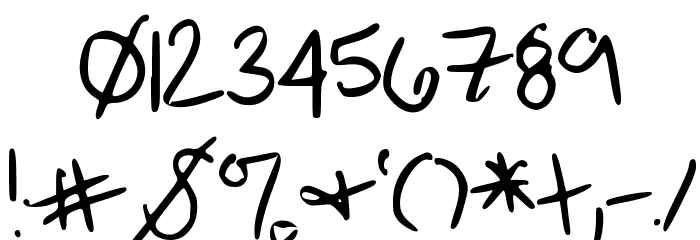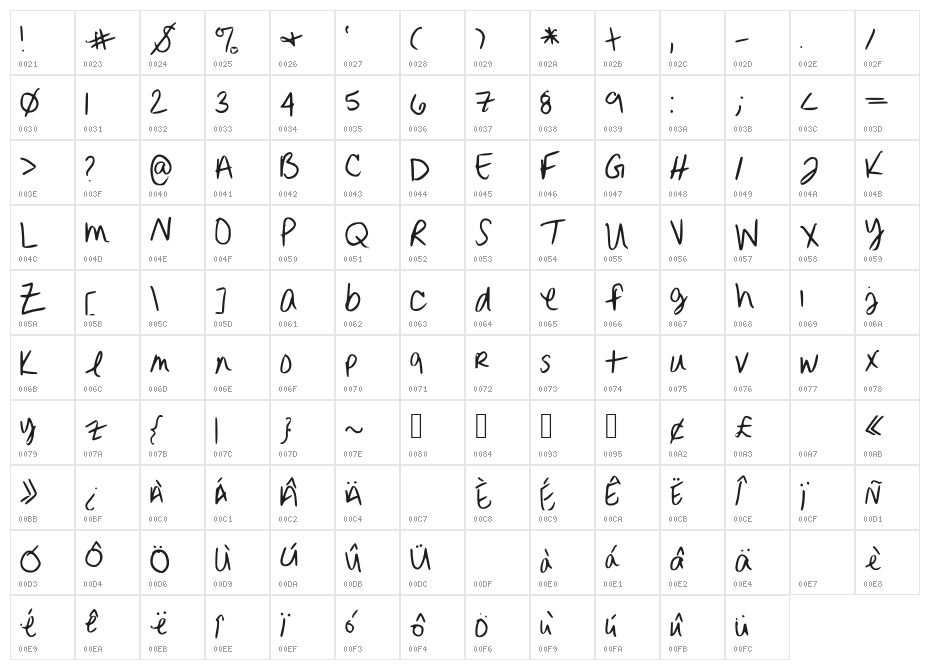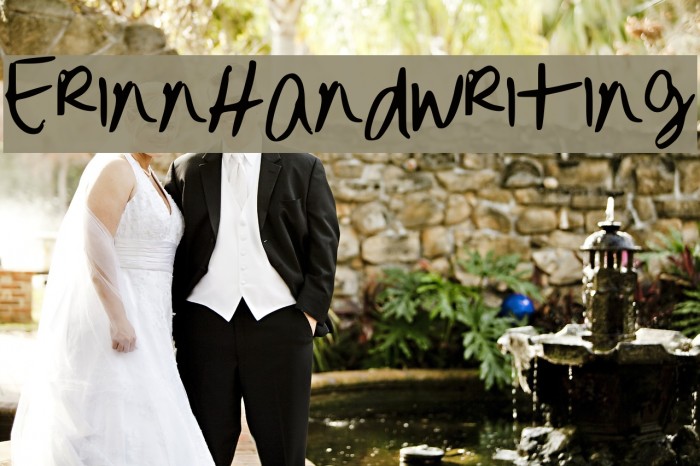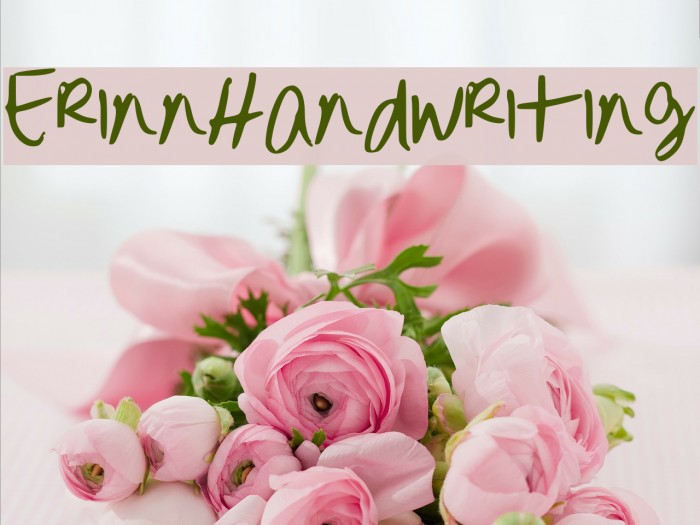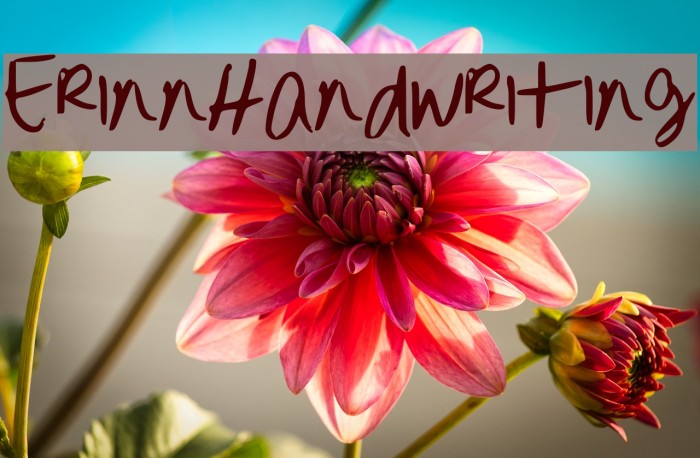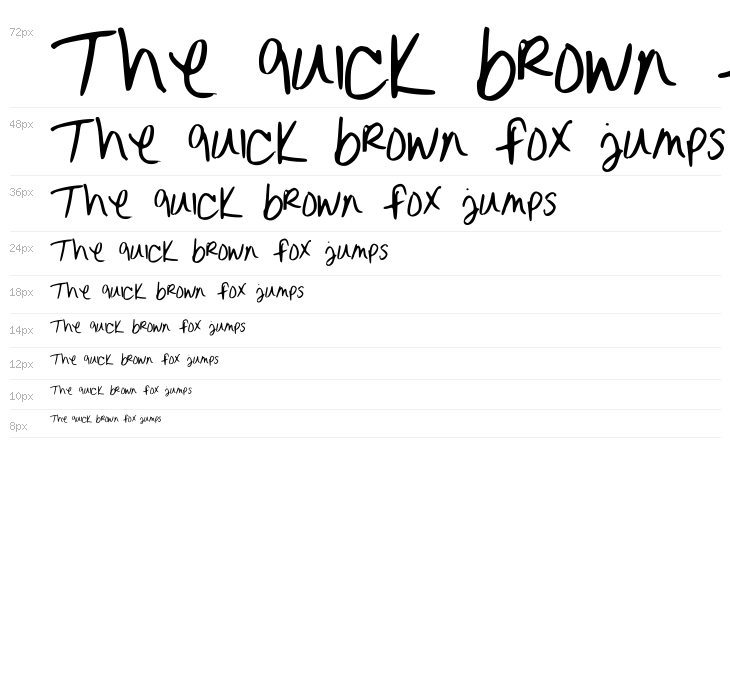
ErinnHandwriting Font
ErinnHandwriting Description
This font exudes a casual and personal touch, reminiscent of authentic handwriting. Each character is crafted with a fluid and spontaneous style, giving it a lively and approachable feel. The strokes are uneven, adding to the handwritten charm, while maintaining legibility. The uppercase and lowercase letters are distinct, with playful loops and curves that enhance its informal nature. Numbers and special characters are seamlessly integrated, following the same organic flow. This font is perfect for projects that require a personal and friendly tone.
| Overall Style | Casual, Handwritten |
| Proposed Projects | Ideal for personal notes, invitations, greeting cards, and creative projects that require a handwritten feel. |